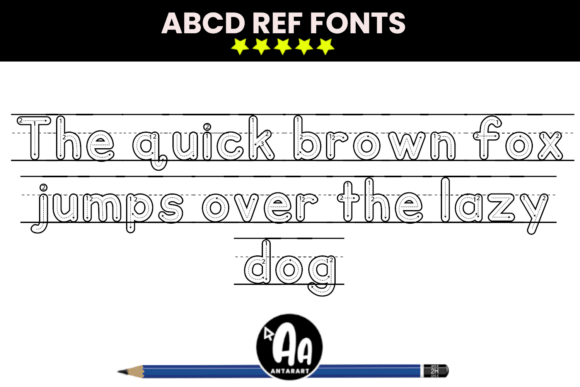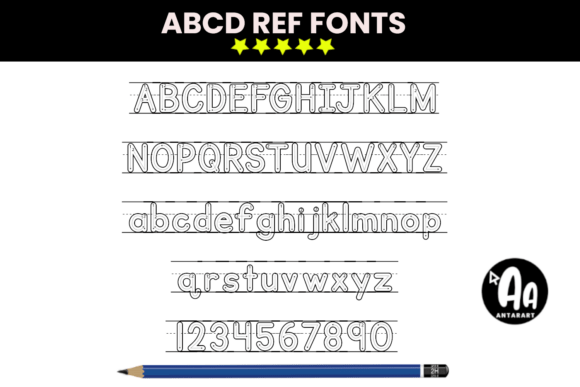
Unlocking the Power of Alphabet Recognition with Abcd Ref Outlined Dotted Arrows Lined Font
As a parent, I still remember the countless hours I spent watching my child struggle to recognize and write the alphabet. The frustration was palpable, but it was a moment that sparked a creative idea – what if there was a way to make learning the alphabet more engaging and interactive? Little did I know, the answer lay in the Abcd Ref Outlined Dotted Arrows Lined Font, a game-changing tool that’s been a lifesaver for parents and educators alike.
This installable font is inspired by the D’Nealian handwriting method and is designed to help with print alphabet letter recognition, making it an invaluable resource for those who want to learn or teach the print alphabet enjoyably and interactively. With its easy-to-install feature and versatility in any software, it’s a must-have tool for creating printable worksheets.
Abcd Ref Outlined Dotted Arrows Lined Font Key Features
- Font Family: Abcd Ref Outlined Dotted Arrows Lined Font, a unique and stylish font designed for various applications.
- Unique Characteristics: Features outlined and dotted arrow designs, providing a distinctive and eye-catching visual effect.
- Usage: Suitable for a wide range of applications, including business presentations, marketing materials, and creative projects.
Design Review: Abcd Ref Outlined Dotted Arrows Lined Font
Overall, I think Abcd Ref Outlined Dotted Arrows Lined Font is a great choice for designers looking for a modern and clean sans-serif font. ✨ Here are some of the things that work well:
- High contrast between the outlined and dotted elements, making it perfect for illustrations and graphics.
- The font’s bold and playful style makes it ideal for headings and titles.
- The arrows and lines are nicely integrated, adding a sense of movement and energy to the design.
- ⚠️ The font may not be suitable for large blocks of text, as the outlined elements can make it difficult to read.
- ⚠️ The font is quite bold, so it may not be the best choice for designs where subtlety is key.
- ⚠️ The font’s unique style may not be to everyone’s taste, so it’s essential to test it thoroughly before using it in a project.
Overall, I think Abcd Ref Outlined Dotted Arrows Lined Font is a fantastic addition to any designer’s toolkit. With its versatility and modern style, it’s perfect for a wide range of design projects. Just be aware of its limitations and use it thoughtfully to get the best results.
To get the most out of the Abcd Ref Outlined Dotted Arrows Lined Font, use it in conjunction with other design elements to create a cohesive look.
Experiment with different font sizes, colors, and styles to create visual interest.
The Abcd Ref Outlined Dotted Arrows Lined Font is commonly used in:
- Infographics
- Presentations
- Reports
- Brochures
Alternatives to Abcd Ref Outlined Dotted Arrows Lined Font
1. Abcd Ref Filled Arrows Lined Font
Abcd Ref Filled Arrows Lined Font is similar to Abcd Ref Outlined Dotted Arrows Lined Font, but it features filled arrowheads instead of outlined ones. This font is ideal for situations where a more solid and prominent arrow is needed. It compares to Abcd Ref Outlined Dotted Arrows Lined Font in that it provides a different visual representation of the reference arrows.
2. Abcd Ref Dashed Arrows Font
Abcd Ref Dashed Arrows Font is a variation of Abcd Ref Outlined Dotted Arrows Lined Font, but it features dashed lines instead of dotted ones. This font is suitable for use in situations where a more dynamic and attention-grabbing arrow is required. It differs from Abcd Ref Outlined Dotted Arrows Lined Font in that it uses a different line style to convey the reference information.